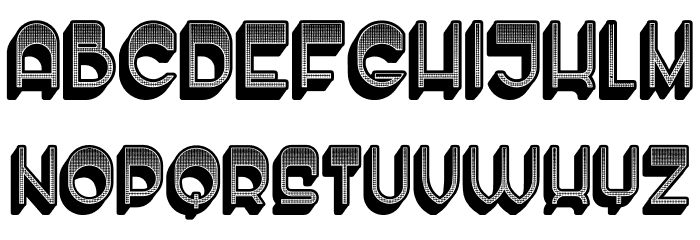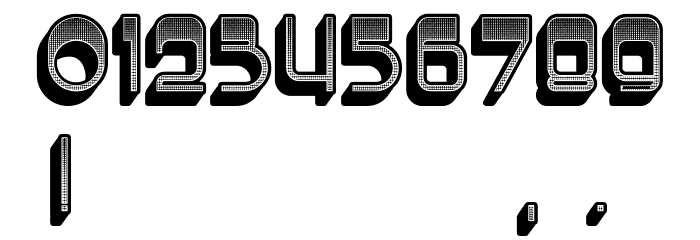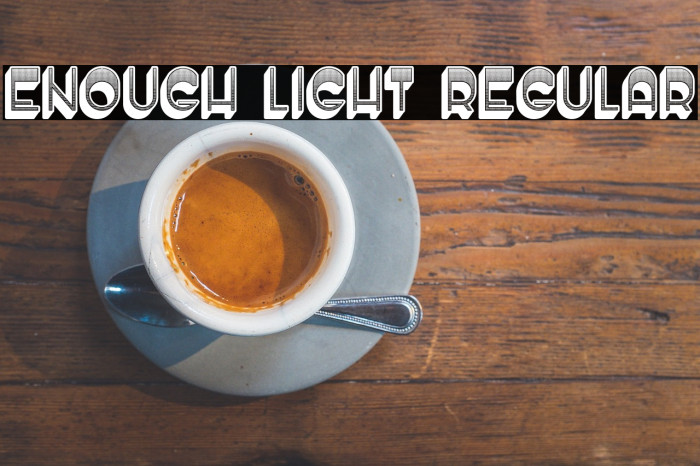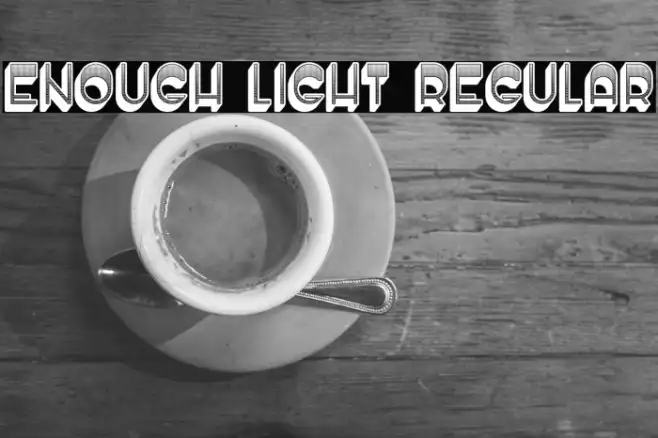
Enough Light Regular Font
This font features a bold, geometric design with a distinct 3D effect. Each character is outlined with a thick border and filled with a grid-like pattern, giving it a textured appearance. The uppercase and lowercase letters maintain a consistent style, with sharp angles and clean lines. The numerals and special characters follow the same design principles, ensuring uniformity across all glyphs. This font's unique style makes it stand out, offering a modern and dynamic look suitable for various creative projects.
A bold, geometric font with a 3D effect and textured grid pattern.
- Font: Enough Light Regular
- Proposed Projects: Ideal for posters, logos, video game graphics, and any project requiring a bold, eye-catching typeface.